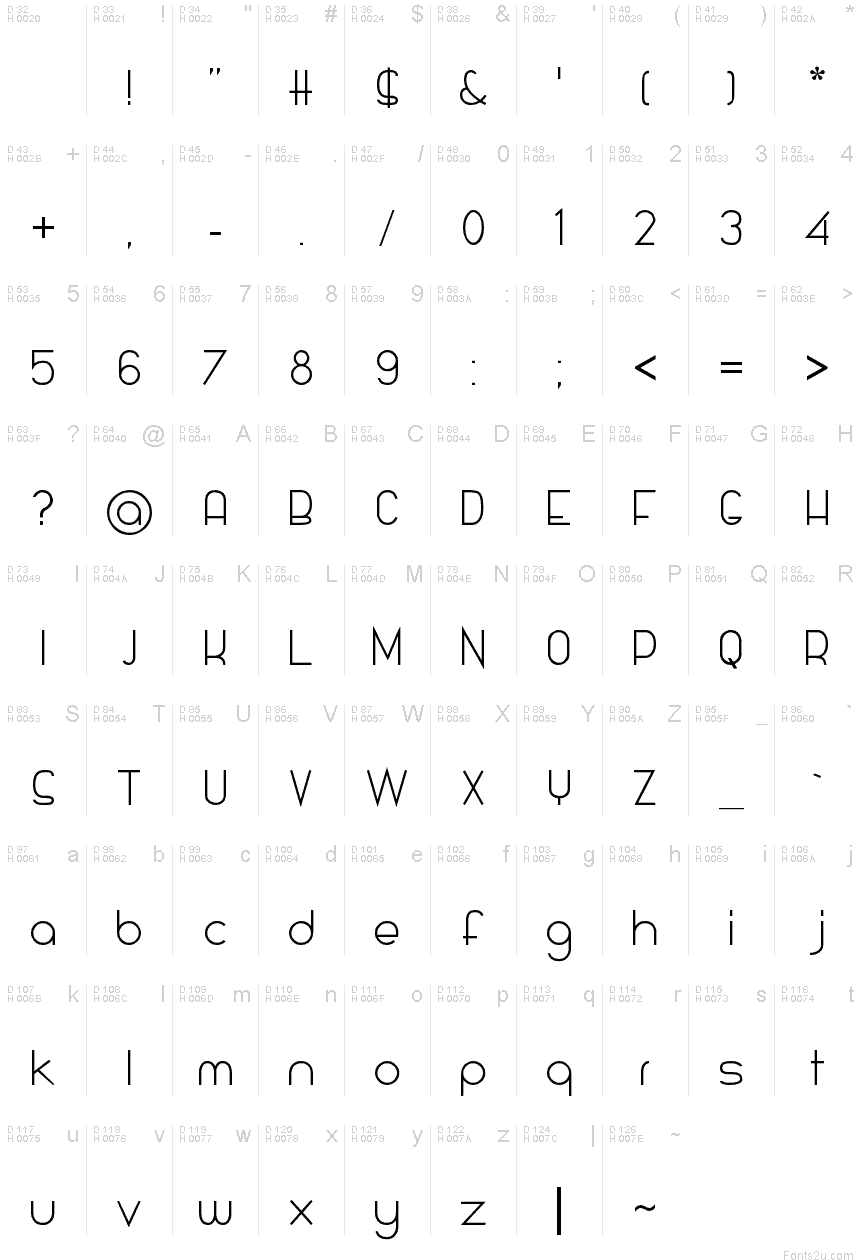
Glamourousse
Glamourousse by David Espinosa is a free retro display font with a sleek Art Deco bearing. Its tall, fine strokes shift between broad circles and compressed vertical forms, with sharply pointed joins and an architectural silhouette.
Fashion labels could use it for an elegant period identity. It also suits event posters, beauty packaging, and magazine covers with a 1920s-inspired direction. Across these settings, its elongated geometry makes the lettering part of the decorative framework rather than ordinary titling.